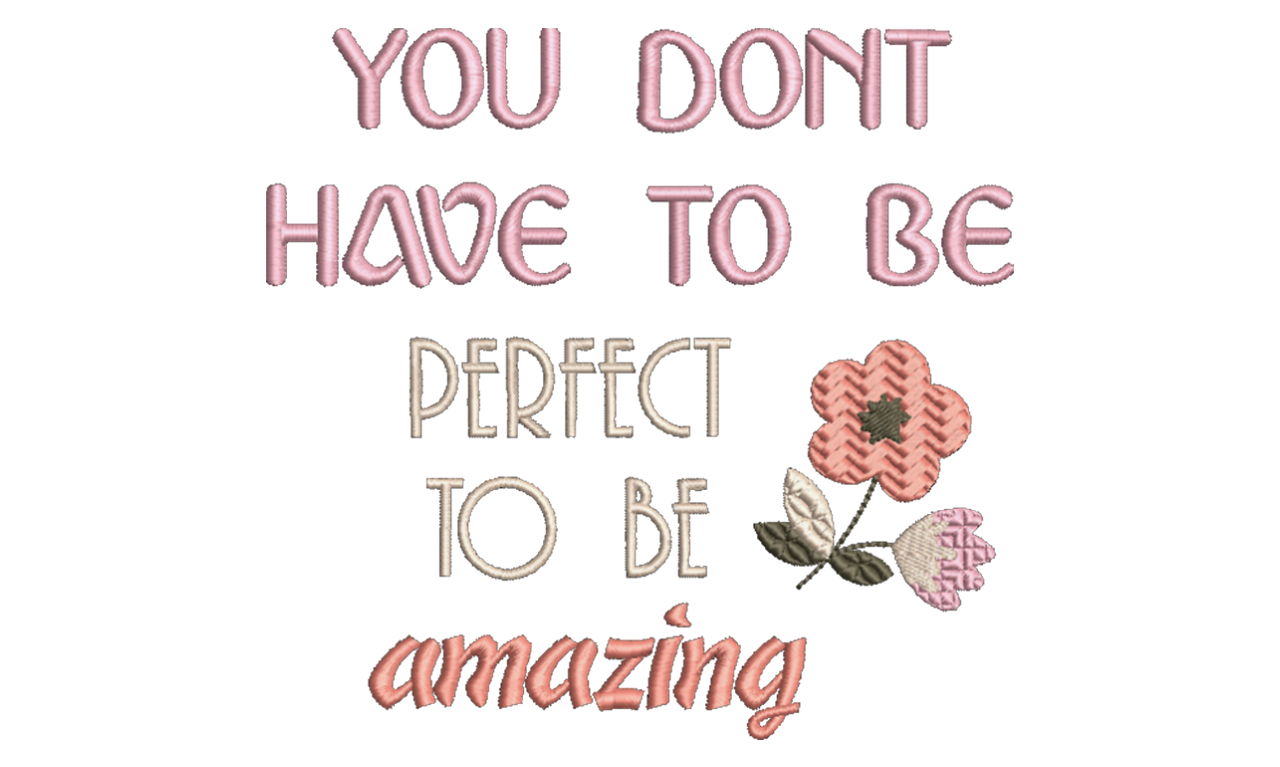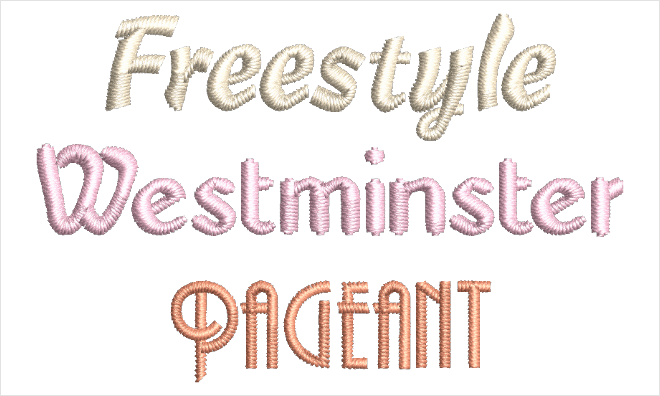
Font Pack #21 - Informal Satin
Easy and clean to read. This collection offers a brush style font, a font that looks good on multiple lines of text, and a narrow satin stitch font that looks good when using all uppercase letters.
Free Style
Use this to give a handmade uneven brush writing look to your projects.
Westminster
This font looks good as single line or multiple line text
Pageant
A font that also looks good when using a slant
Easy and clean to read. This collection offers a brush style font, a font that looks good on multiple lines of text, and a narrow satin stitch font that looks good when using all uppercase letters.